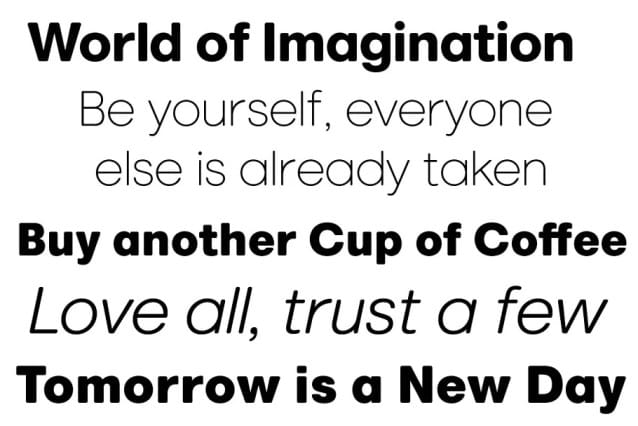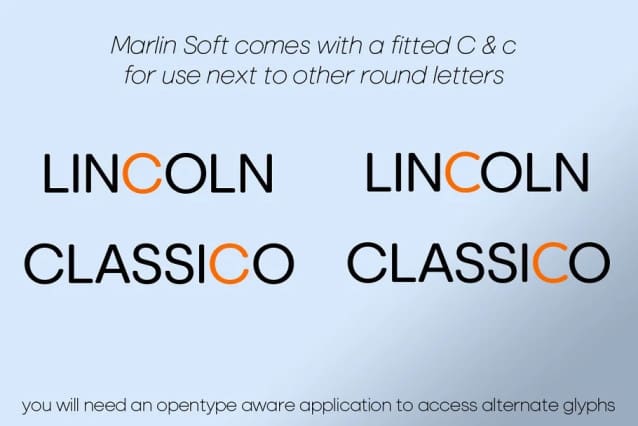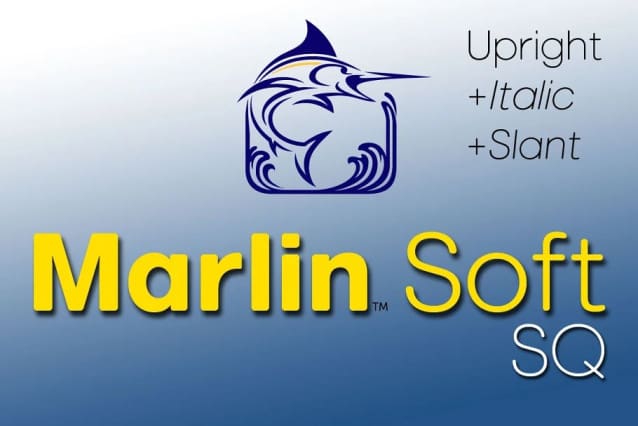
Marlin Soft SQ Font
Marlin Soft SQ Font is a rounded edge version of our Marlin Sans SQ font. MarlinSoft SQ is currently on sale for a limited time, regular price for this bundle is $95. Marlin is a trademark of FontMesa LLC initial release 8-8-2019
Marlin Soft SQ contains alternate glyphs, you will need an Opentype aware application such as Adobe Illustrator to access alternates, Windows character map can not be used to access alternate glyphs.